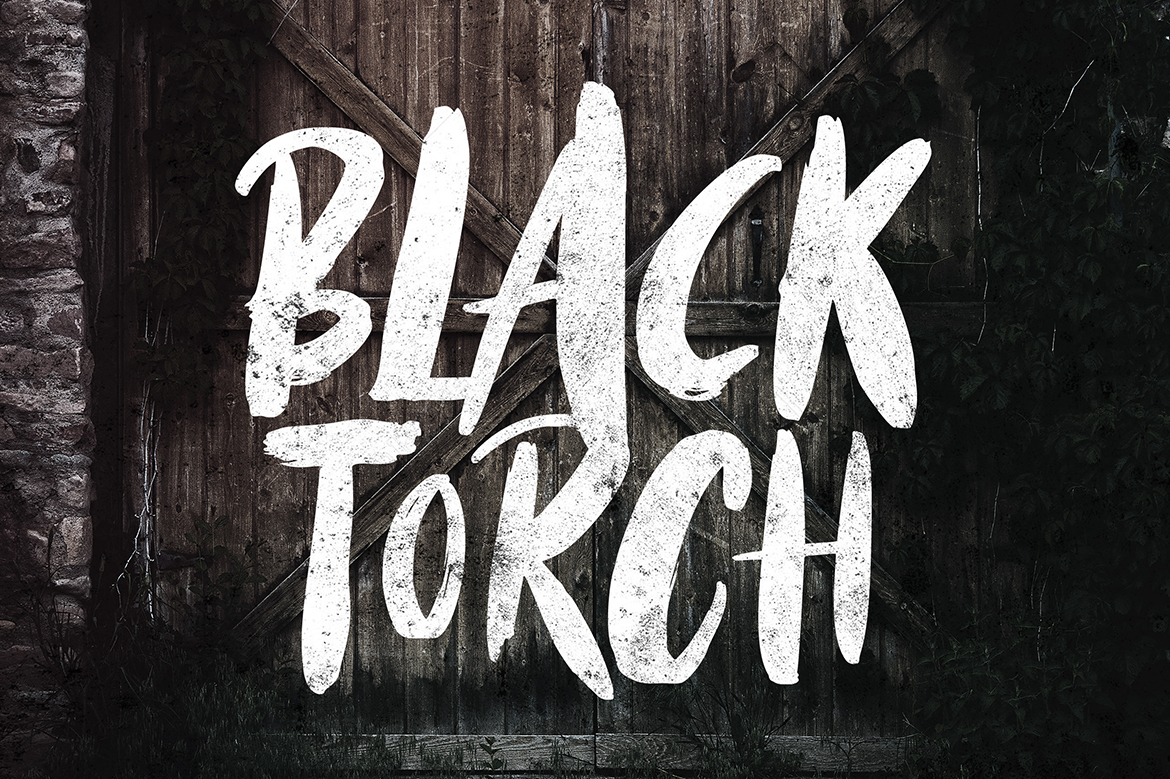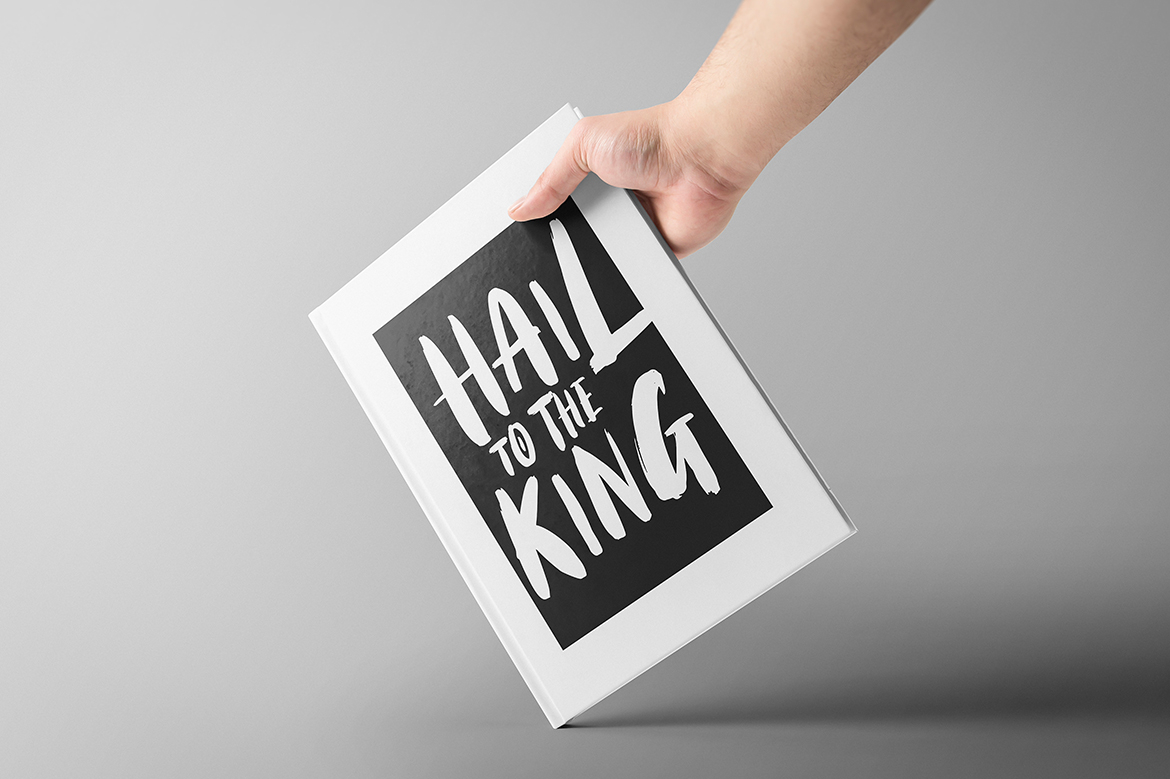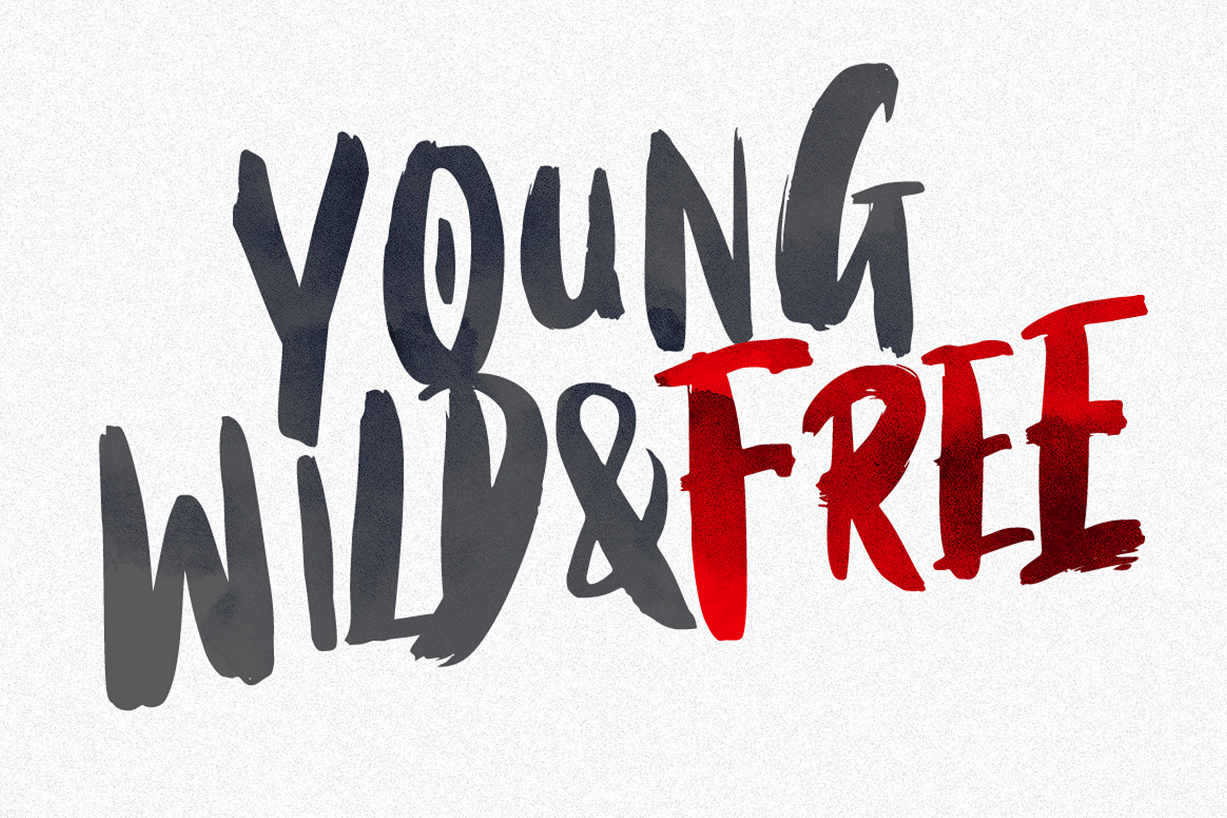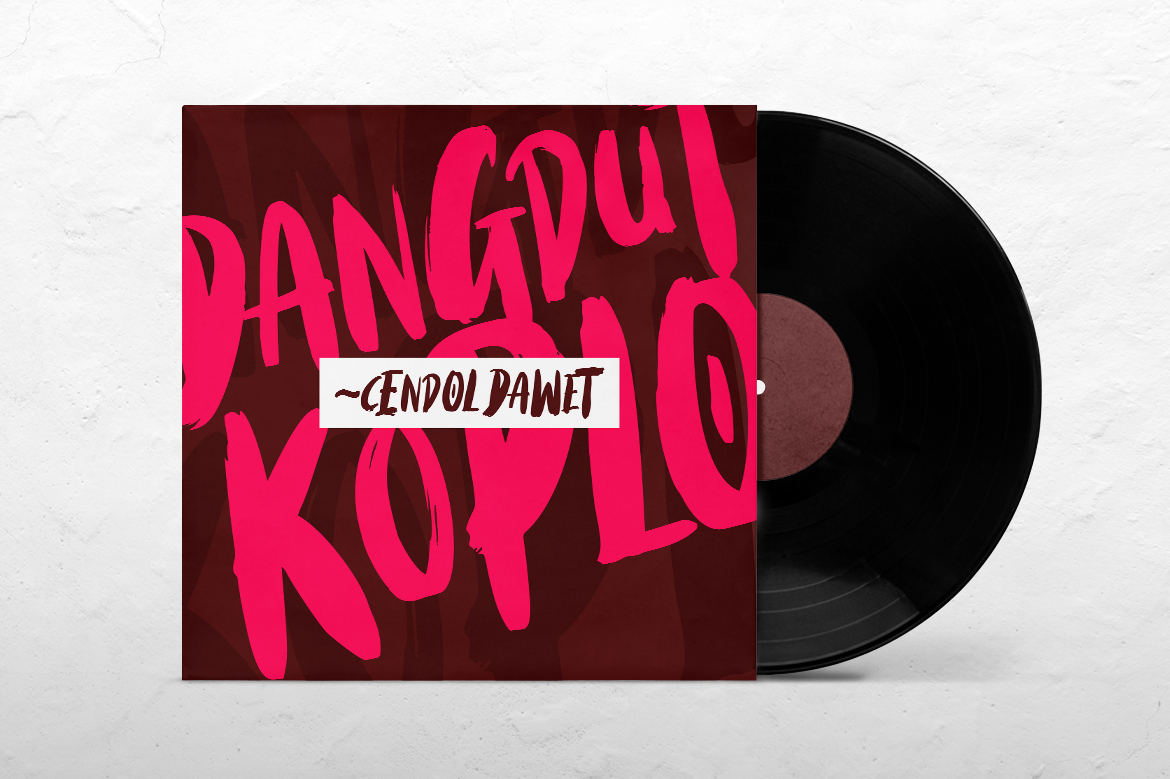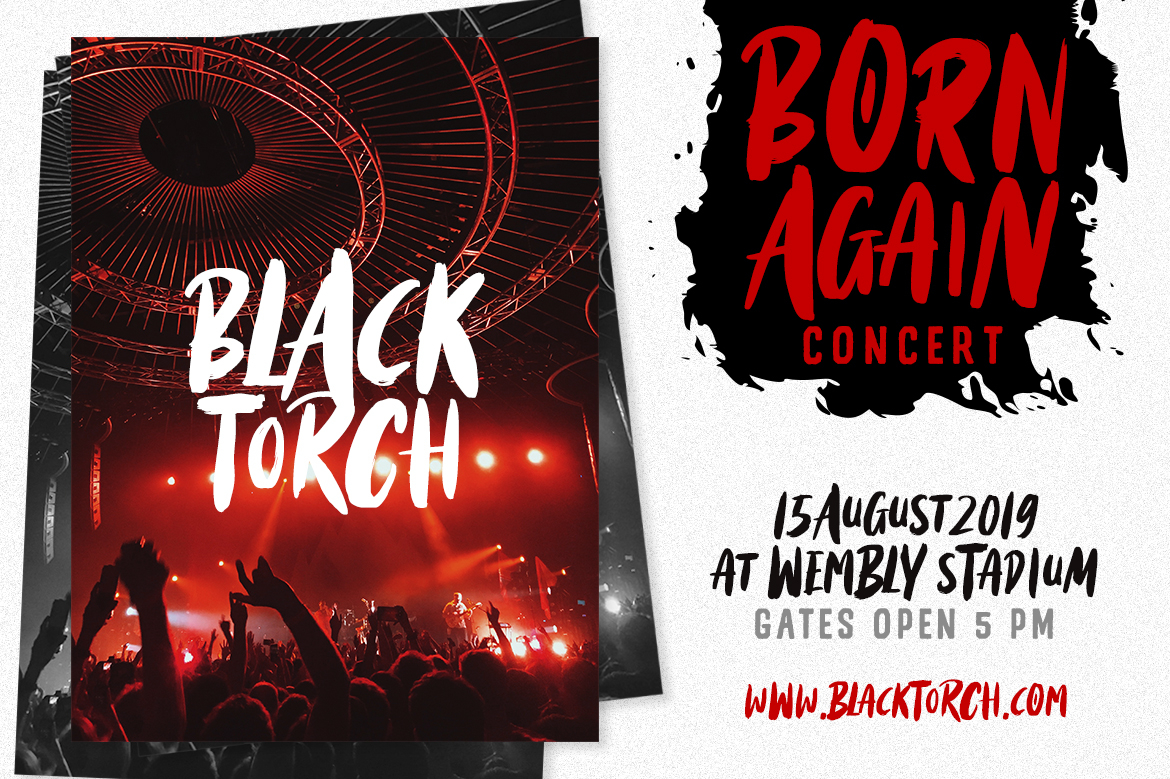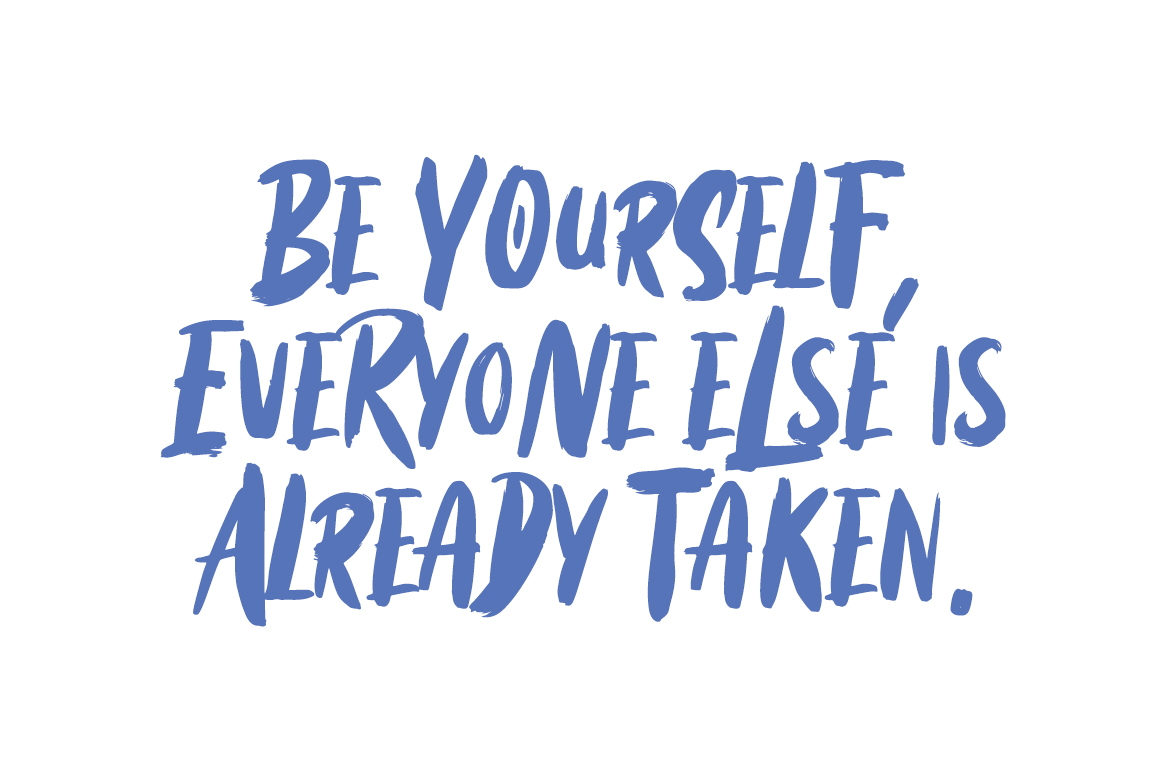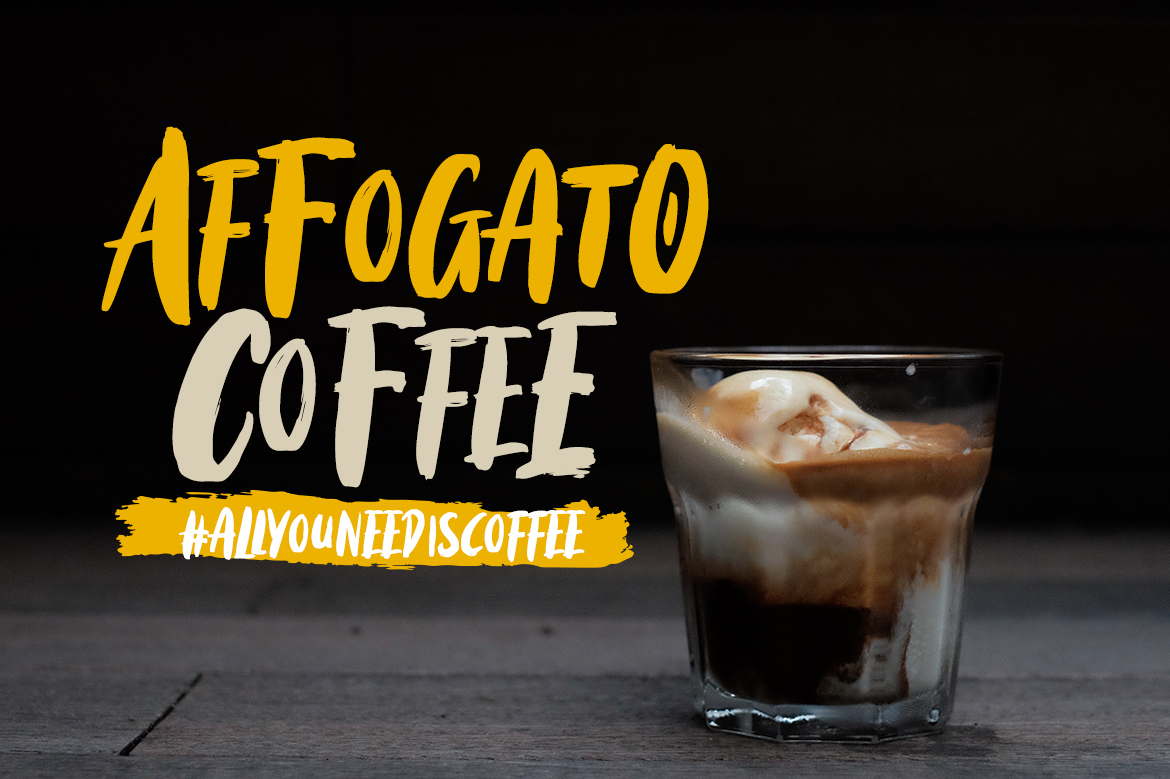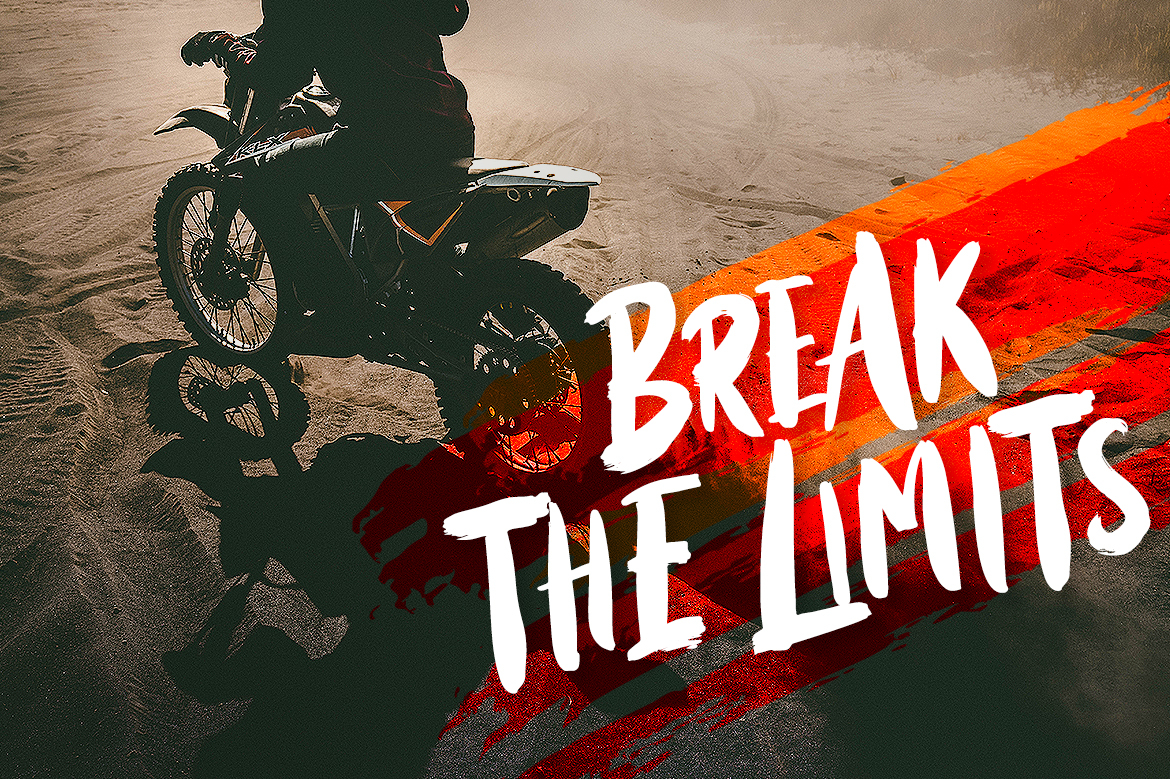
Black Torch Font
About Black Torch Font
Black Torch is a brush font bursting with natural rough dry brush strokes. Perfect for a variety of design projects!